Granted, some of these aren’t entirely that recent, but I haven’t posted about fonts in a while. All three of these fonts are from one of my favorite font designers, Billy Argel. All of them have somewhat of a western feel to them, which I enjoy. They can be downloaded free for personal use, but commercial licenses can be purchased if you need one.
1. Body Hunter
2. Outlaw
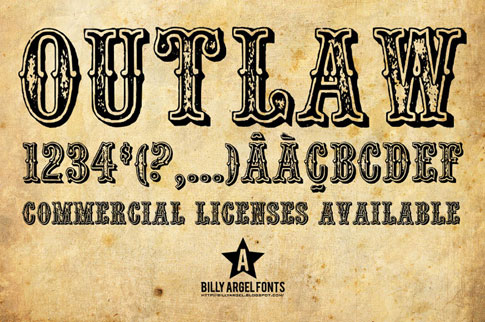
3. Monbijoux